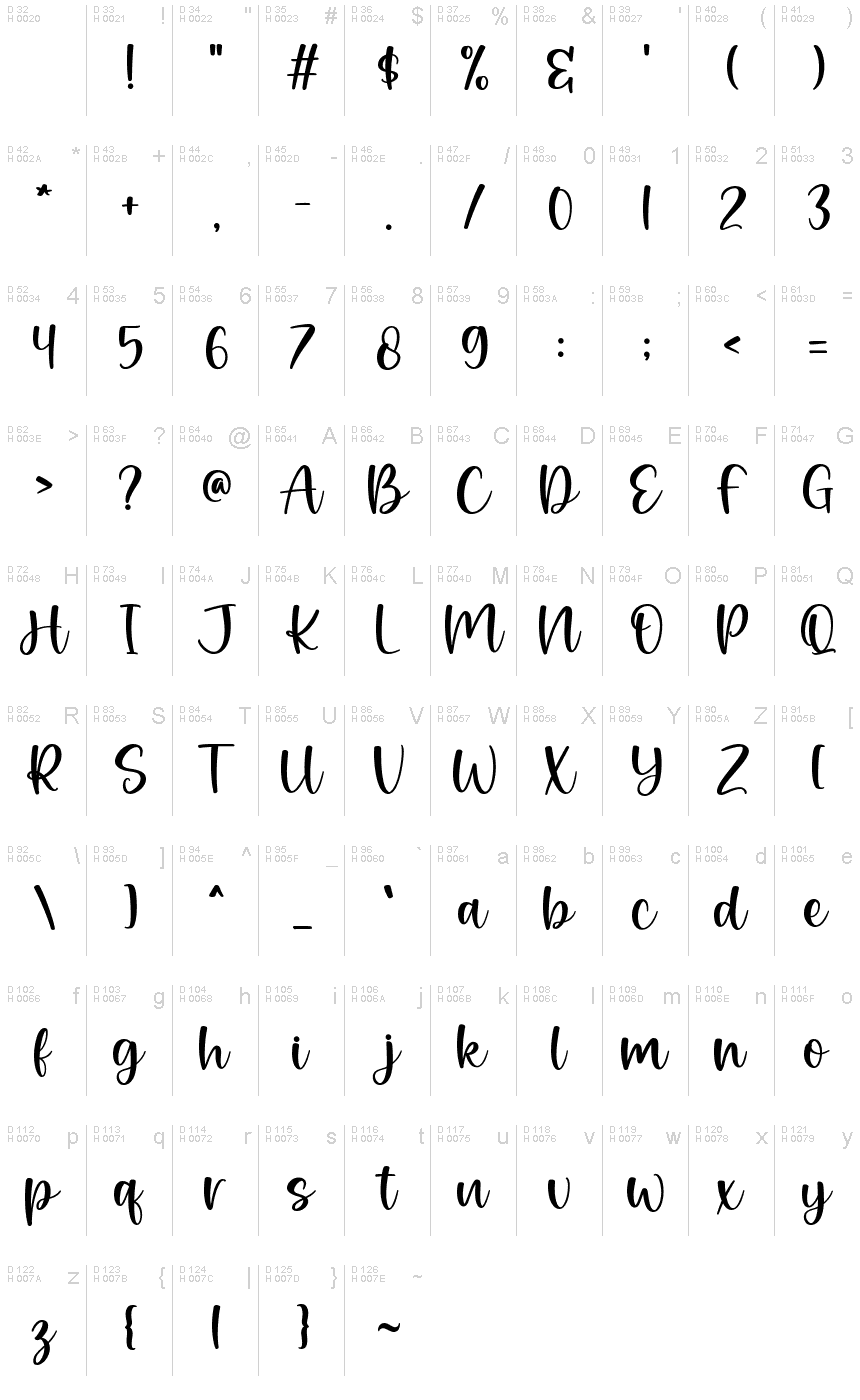
Pinewood
Pinewood, a creation of Graphix Line Studio, is a semi-bold handwritten font that exudes charm and personality. Infused with an aesthetic appeal that captures the essence of personal touch in digital form, this font's fluidity and distinctive stroke variation bring a sense of authenticity to any project it graces.
With its gentle curves and natural flow, Pinewood offers a balance between legibility and artistic flair. The semi-bold weight ensures that text stands out without overwhelming the senses, making it ideal for designs where warmth and approachability are key. From invitations to branding, editorial content to digital graphics, Pinewood is versatile enough to enhance your creative vision with its stylistic nuances and inviting character.